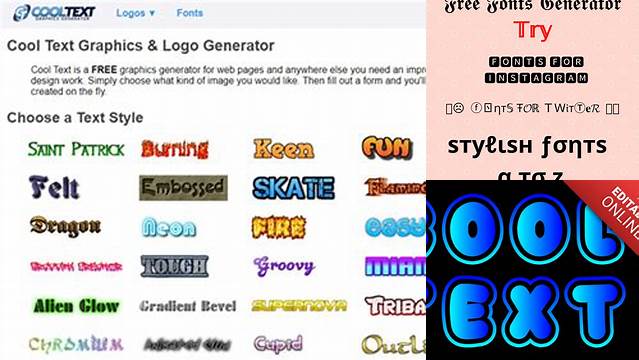
Cool Fonts Letter Generator: Free & Stylish Text!
Hey guys! Ever wanted to spice up your texts, social media posts, or designs with some cool and unique fonts? Well, you've come to the right place! We're diving deep into the world of font letter generators, exploring everything from the basics to the nitty-gritty details. Get ready to unleash your inner typography guru!
What is a Font Letter Generator?
So, what exactly is a font letter generator? Simply put, it's a tool that allows you to create text in a variety of stylish and eye-catching fonts. Forget the same old boring system fonts – these generators offer a plethora of options, from elegant scripts to funky display fonts. They're super useful for adding personality and flair to your online presence, whether you're crafting a catchy Instagram caption, designing a logo, or just want your messages to stand out. These tools often work by using Unicode characters to mimic different font styles, which means the fancy text you generate can be copied and pasted across various platforms. Think of it as your secret weapon for making your text look amazing, no matter where you share it. Whether you're a social media enthusiast or a professional designer, a font letter generator can be a real game-changer. The possibilities are truly endless, guys!
Why Use a Font Letter Generator?
Okay, so you know what a font letter generator is, but why should you bother using one? Great question! The biggest reason is to make your content stand out. In today's digital world, everyone is bombarded with information, so grabbing attention is crucial. A cool font can be the difference between someone scrolling past your post and stopping to read it. Imagine trying to make a big splash on social media – a unique font can instantly elevate your captions, bios, and stories. Beyond just aesthetics, font letter generators can also help you express your personality and brand identity. The font you choose can convey a specific mood or style, from playful and quirky to sophisticated and elegant. If you're building a brand, consistent use of a particular font can create a memorable visual identity. Plus, they're just plain fun to use! Experimenting with different fonts is a fantastic way to add creativity to your projects and break free from the monotony of standard text. Whether it's for personal expression or professional branding, a font letter generator provides a simple yet powerful way to make a statement. You'll be surprised at how much of an impact a simple font change can make, trust me!
Different Types of Font Letter Generators
Not all font letter generators are created equal, guys! There's a whole spectrum of tools out there, each with its own strengths and features. Let's break down some of the common types you might encounter. First up, we have basic font generators, which are super straightforward and easy to use. You simply type in your text, choose a font style, and voila – your fancy text is ready to copy and paste. These are perfect for quick and simple font transformations. Then there are online font editors, which offer more advanced customization options. These often allow you to adjust font size, color, spacing, and even add effects like shadows or outlines. If you're looking for a more personalized touch, an online editor might be the way to go. Another type is font generator apps, which you can download to your phone or tablet. These apps are incredibly convenient for creating stylish text on the go, whether you're crafting Instagram stories or sending messages. And finally, there are specialty font generators that cater to specific styles, like calligraphy, graffiti, or retro fonts. If you have a particular aesthetic in mind, these tools can help you achieve it. Understanding the different types of font letter generators will help you choose the perfect tool for your needs, so you can create text that truly shines. We gotta get the right tools for the job, right?
Where to Find the Best Font Letter Generators Online
Okay, so you're sold on the idea of using a font letter generator, but where do you find the best ones online? Don't worry, I've got you covered! There are tons of websites and apps out there, but some definitely stand out from the crowd. One of the most popular options is LingoJam, which offers a simple and user-friendly interface with a wide variety of fonts to choose from. Another great choice is CoolSymbol, which not only generates fancy text but also provides a huge library of symbols and emojis to spice things up even further. For those who want more customization options, FontGet is a fantastic resource, offering a range of fonts and styles that you can tweak to your liking. If you're looking for a mobile app, Stylish Text is a top pick, allowing you to create cool text directly from your phone. And for those who love Instagram, IGFonts is specifically designed for generating fonts that look great on the platform. When choosing a font letter generator, consider factors like ease of use, font selection, customization options, and whether it's compatible with the platforms you use most. With a little bit of research, you can find the perfect tool to unleash your font-astic creativity. Finding the right one is like discovering a hidden gem!
How to Use a Font Letter Generator: A Step-by-Step Guide
Using a font letter generator is super easy, guys! Let's break it down into a step-by-step guide so you can start creating awesome text in no time. First things first, choose your generator. We talked about some great options earlier, like LingoJam and CoolSymbol. Once you've picked one, head over to their website or open the app. Next, you'll usually see a text box where you can type in your message. Just type whatever you want to transform into a cool font. Now comes the fun part: browsing the fonts. Most generators will display a list of font styles below the text box, showing you how your message will look in each font. Scroll through the options and find one that catches your eye. Once you've found the perfect font, simply copy the generated text. Most generators have a handy